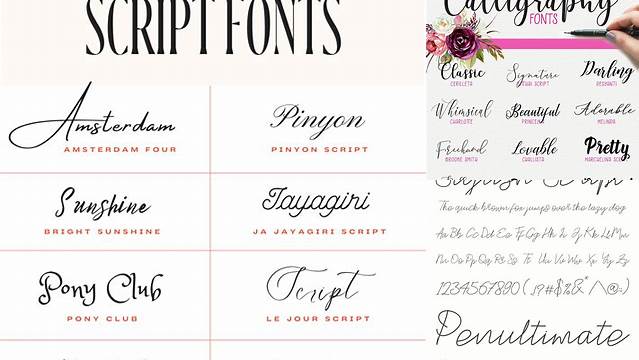
Stylish Handwriting Fonts: Add A Personal Touch
Hey guys! Are you looking to add a personal and artistic touch to your projects? Dive into the world of handwriting aesthetic fonts! These fonts bring the beauty and authenticity of handwritten text to your digital creations, making them feel more engaging and unique. In this guide, we’ll explore the charm and versatility of these fonts, perfect for anyone aiming to infuse their work with a human touch.
What are Handwriting Aesthetic Fonts?
Let's start with the basics. Handwriting aesthetic fonts are designed to mimic the look and feel of actual handwriting. Unlike traditional fonts that have a more uniform and structured appearance, these fonts feature variations in stroke thickness, letterforms, and spacing, giving them a natural, hand-crafted vibe. The goal is to capture the fluidity and imperfections that make handwriting so charming and personal.
Characteristics of Handwriting Aesthetic Fonts
- Varied Strokes: One of the key characteristics of handwriting fonts is the variation in stroke thickness. Just like when you write by hand, the pressure applied to the pen or pencil changes, resulting in thicker and thinner lines. This dynamic quality adds depth and realism to the font.
- Unique Letterforms: Each letter in a handwriting font may have slight variations, mirroring the inconsistencies that occur in natural handwriting. This prevents the text from looking too uniform and repetitive, which can happen with standard fonts. These subtle differences make the font feel more authentic and lively.
- Irregular Spacing: Handwriting fonts often include irregular spacing between letters and words. This mimics the natural flow of handwriting, where spacing isn't always perfectly consistent. This irregularity contributes to the overall handwritten aesthetic, making the text feel more personal and less mechanical.
- Swashes and Flourishes: Many handwriting aesthetic fonts come with swashes and flourishes—decorative strokes that extend from the letters. These elements add an extra touch of elegance and personality, making the font suitable for invitations, headings, and other design elements that need a bit of flair.
- Ligatures: Ligatures are another important feature of handwriting fonts. These are special characters where two or more letters are connected, just as they would be in cursive handwriting. Ligatures help to create a smoother, more natural flow of text, enhancing the overall handwritten feel.
Why Use Handwriting Aesthetic Fonts?
So, why should you use handwriting aesthetic fonts? There are many compelling reasons. First and foremost, these fonts add a personal touch to your projects. In a digital world where so much communication feels impersonal, using a font that resembles handwriting can help you connect with your audience on a more human level. It makes your message feel more authentic and heartfelt.
Handwriting fonts are also excellent for creating a warm and inviting atmosphere. Whether you're designing a wedding invitation, a blog header, or a social media graphic, a handwritten font can evoke feelings of intimacy and care. This is particularly useful for brands and individuals who want to project a friendly and approachable image. Moreover, these fonts are incredibly versatile. They can be used in a wide range of design projects, from formal invitations to casual blog posts. Their flexibility makes them a valuable tool in any designer's toolkit.
Popular Styles of Handwriting Aesthetic Fonts
Now that we've covered the basics, let's explore some popular styles of handwriting aesthetic fonts. The world of handwriting fonts is incredibly diverse, with styles ranging from elegant and refined to playful and quirky. Understanding the different styles can help you choose the perfect font for your specific project.
Casual and Playful Fonts
If you're looking for a font that's fun and approachable, a casual and playful handwriting font might be just what you need. These fonts often feature rounded letterforms, bouncy baselines, and a generally lighthearted feel. They're perfect for projects that need a touch of whimsy, such as children's books, informal invitations, or social media graphics. Think of these fonts as the visual equivalent of a friendly smile.
These types of handwriting fonts usually have a natural, unpretentious look that makes them ideal for projects where authenticity is key. They often mimic the style of everyday handwriting, making them feel relatable and familiar. By using a casual font, you can create a sense of ease and informality, which can be particularly effective in engaging your audience.
Elegant and Refined Fonts
For projects that require a touch of sophistication, an elegant and refined handwriting font is an excellent choice. These fonts often feature delicate strokes, graceful curves, and a sense of timeless beauty. They're perfect for wedding invitations, formal announcements, and other projects where you want to convey a sense of elegance and class. Think of these fonts as the visual equivalent of a perfectly tailored suit or a stunning piece of jewelry.
Elegant handwriting fonts often incorporate elements of calligraphy, with flowing swashes and intricate details. These fonts can add a touch of luxury and sophistication to your designs, making them feel more special and memorable. They're also a great choice for branding materials, particularly for businesses that want to project a high-end image. Using an elegant font can instantly elevate the perceived value of your brand.
Modern and Minimalist Fonts
In recent years, modern and minimalist handwriting fonts have become increasingly popular. These fonts combine the simplicity of contemporary design with the warmth of handwritten text. They often feature clean lines, subtle variations in stroke thickness, and a focus on readability. These fonts are perfect for projects that need a modern, understated look, such as website headers, blog graphics, and branding materials.
Modern handwriting fonts often strike a balance between formality and informality, making them versatile for a wide range of applications. They can add a personal touch to minimalist designs, preventing them from feeling too cold or sterile. By using a modern handwriting font, you can create a design that feels both contemporary and approachable.
Vintage and Rustic Fonts
If you're aiming for a nostalgic or old-fashioned feel, a vintage and rustic handwriting font is the way to go. These fonts often evoke the charm of antique letters and handwritten documents. They may feature rough textures, irregular edges, and a sense of history. These fonts are perfect for projects that need a touch of nostalgia, such as vintage-inspired posters, labels, and packaging designs.
Vintage handwriting fonts can add a unique character to your designs, making them stand out from the crowd. They're also a great choice for projects that tell a story or evoke a particular era. By using a rustic font, you can create a sense of authenticity and craftsmanship, which can be particularly effective in attracting customers who value quality and tradition.
How to Choose the Right Handwriting Aesthetic Font
Choosing the right handwriting aesthetic font can be a game-changer for your project. With so many options available, it’s essential to consider a few key factors to ensure you select the perfect font for your needs. Here’s a guide to help you navigate the selection process.
Consider Your Project’s Purpose
The first step in choosing a handwriting font is to think about the purpose of your project. What message are you trying to convey? What kind of mood do you want to create? The answers to these questions will help you narrow down your options. For example, if you're designing a wedding invitation, you'll likely want an elegant and refined font. On the other hand, if you're creating a children's book, a casual and playful font would be more appropriate.
Think about the overall style and tone of your project. Is it formal or informal? Serious or lighthearted? The font you choose should align with these qualities. A font that doesn't match the tone of your project can feel out of place and undermine your message. It’s crucial to select a font that complements the overall design and enhances the intended impact.
Think About Readability
While handwriting fonts are beautiful, readability is crucial. If your text is difficult to read, your message will be lost. Choose a font that is clear and legible, especially for body text. Avoid fonts with overly elaborate swashes or intricate letterforms, as these can be challenging to read in large blocks of text.
Consider the size and spacing of the font as well. A font that looks great in a large heading might not be suitable for smaller text. Make sure the letters are well-spaced and easy to distinguish from one another. It’s always a good idea to test the font in different sizes and contexts to ensure it remains readable.
Match the Font to Your Brand
If you're using a handwriting font for branding purposes, it's essential to choose a font that aligns with your brand identity. Your font should reflect your brand’s personality, values, and target audience. A font that is consistent with your brand will help you create a cohesive and recognizable visual identity.
Think about the overall image you want to project. Is your brand playful and approachable, or sophisticated and professional? The font you choose should communicate these qualities effectively. A well-chosen font can reinforce your brand message and help you stand out in a crowded marketplace.
Test the Font in Different Contexts
Before making a final decision, it's a good idea to test the handwriting font in different contexts. See how it looks on various backgrounds, in different colors, and alongside other design elements. This will help you ensure that the font works well in your overall design.
Try using the font in headings, body text, and captions. See how it performs in each context. Pay attention to the font’s legibility and visual impact. Does it grab attention when used in a heading? Is it easy to read in a paragraph? Testing the font in different scenarios will help you identify any potential issues and make an informed decision.
Consider the Font’s Personality
Every handwriting font has its own unique personality. Some fonts are playful and quirky, while others are elegant and refined. Choose a font that resonates with your personal style and the overall tone of your project. A font that feels authentic and genuine will help you connect with your audience on a deeper level.
Think about the emotions you want to evoke. Do you want your audience to feel inspired, comforted, or excited? The font you choose can play a significant role in shaping these emotions. A font that aligns with your emotional goals will enhance the overall impact of your message.
Where to Find Handwriting Aesthetic Fonts
Finding the perfect handwriting aesthetic font is easier than you might think. There are numerous resources available online, both free and paid, where you can discover a wide variety of fonts to suit your needs. Here are some popular places to start your search:
Online Font Marketplaces
One of the best places to find handwriting fonts is online font marketplaces. These platforms offer a vast selection of fonts, ranging from free options to premium designs. Some of the most popular font marketplaces include:
- MyFonts: MyFonts is a leading online font marketplace with a huge collection of fonts from independent designers and foundries. You'll find a wide variety of handwriting fonts here, from elegant scripts to playful casual styles.
- Creative Market: Creative Market is another excellent resource for fonts. It offers a curated selection of high-quality fonts, graphics, and other design resources. You can often find unique and stylish handwriting fonts here that you won't find anywhere else.
- Fontspring: Fontspring is known for its user-friendly licensing and wide selection of fonts. It features a diverse range of handwriting fonts, with options for both personal and commercial use.
- Adobe Fonts: If you're an Adobe Creative Cloud subscriber, you have access to Adobe Fonts, a library of thousands of fonts that are included with your subscription. Adobe Fonts offers a variety of handwriting fonts, all of which are licensed for both personal and commercial use.
Free Font Websites
If you're on a budget, there are also many websites that offer free handwriting fonts. While the selection may not be as extensive as on paid marketplaces, you can still find some excellent options. Just be sure to check the licensing terms before using a free font, as some may have restrictions on commercial use. Some popular free font websites include:
- Google Fonts: Google Fonts is a fantastic resource for free, open-source fonts. It offers a selection of handwriting fonts, all of which are free for both personal and commercial use. Google Fonts are easy to use and can be directly embedded in websites.
- DaFont: DaFont is a popular website with a large collection of free fonts. You'll find a wide variety of handwriting fonts here, but be sure to check the licensing terms for each font before using it.
- Font Squirrel: Font Squirrel is another great resource for free fonts. It offers a curated selection of high-quality fonts that are free for commercial use. You can find a variety of handwriting fonts here, all of which are carefully selected for their quality and usability.
Independent Font Foundries and Designers
In addition to marketplaces and free font websites, you can also find handwriting aesthetic fonts directly from independent font foundries and designers. Many talented designers create and sell their fonts through their own websites or online stores. Buying fonts directly from the creator can be a great way to support independent artists and get access to unique, high-quality fonts.
Some well-known independent font foundries and designers include:
- Laura Worthington: Laura Worthington is a renowned type designer known for her beautiful and elegant handwriting fonts. Her fonts are popular for wedding invitations, branding materials, and other projects that require a touch of sophistication.
- Emily Lime: Emily Lime is another talented type designer who specializes in handwriting fonts. Her fonts range from playful and casual to elegant and refined, making them suitable for a wide range of applications.
- Hustle Supply Co.: Hustle Supply Co. offers a collection of vintage-inspired and rustic fonts, many of which have a handwritten aesthetic. These fonts are perfect for projects that need a touch of nostalgia and craftsmanship.
Tips for Using Handwriting Aesthetic Fonts Effectively
Using handwriting aesthetic fonts effectively can enhance the visual appeal and impact of your designs. However, it's essential to use these fonts thoughtfully and strategically to achieve the best results. Here are some tips to help you make the most of handwriting fonts:
Use Sparingly
While handwriting fonts can add a personal touch to your designs, it's important to use them sparingly. Overusing handwriting fonts can make your design look cluttered and overwhelming. It's generally best to use these fonts for headings, logos, or short blocks of text, rather than for large paragraphs of body text.
Think of handwriting fonts as decorative elements that should be used to highlight key information or add visual interest. They're not always the best choice for body text, as they can be challenging to read in large blocks. By using handwriting fonts selectively, you can create a more balanced and visually appealing design.
Pair with Simple Fonts
To ensure readability and balance, it's a good idea to pair handwriting fonts with simple, clean fonts. A sans-serif font or a classic serif font can complement a handwriting font without competing for attention. This combination can create a harmonious and visually pleasing design.
When pairing fonts, look for fonts that have contrasting styles but similar weights and x-heights. This will help create a sense of visual consistency while still allowing the handwriting font to stand out. A simple, clean font can provide a solid foundation for your design, while the handwriting font adds personality and flair.
Consider the Context
The context in which you're using a handwriting font is crucial. A font that works well for a wedding invitation might not be suitable for a business presentation. Think about your audience, the message you're trying to convey, and the overall tone of your project when choosing a font.
For formal occasions, an elegant and refined handwriting font is often the best choice. For more casual or creative projects, you might opt for a playful or quirky font. Consider the specific needs of your project and select a font that aligns with your goals.
Adjust Spacing and Kerning
Proper spacing and kerning are essential for ensuring readability and visual appeal. Handwriting fonts often have unique spacing characteristics, so it's important to adjust the spacing and kerning as needed to achieve the best results.
Pay attention to the spacing between letters and words. If the spacing is too tight, the text can look crowded and difficult to read. If the spacing is too wide, the text can appear disconnected and disjointed. Adjust the spacing until the text feels balanced and harmonious. Kerning, which is the adjustment of space between individual letters, is also crucial. Make sure the letters are evenly spaced and visually consistent.
Use Color Wisely
Color can play a significant role in how a handwriting font is perceived. Use color wisely to enhance the font’s visual impact and readability. A dark handwriting font on a light background is generally the easiest to read. However, you can also experiment with different color combinations to create a specific mood or effect.
Consider the overall color palette of your design. The font color should complement the other colors in your design and help create a cohesive visual identity. Avoid using colors that are too similar, as this can make the text difficult to read. Contrasting colors can help the handwriting font stand out and grab attention.
Final Thoughts on Handwriting Aesthetic Fonts
Handwriting aesthetic fonts are a fantastic way to add a personal and artistic touch to your designs. Whether you’re working on a wedding invitation, a blog header, or a branding project, these fonts can help you create a unique and memorable visual identity. By understanding the different styles of handwriting fonts and how to use them effectively, you can elevate your designs and connect with your audience on a more human level.
So go ahead, guys, explore the world of handwriting fonts and let your creativity flow! With the right font, you can transform your projects from ordinary to extraordinary.